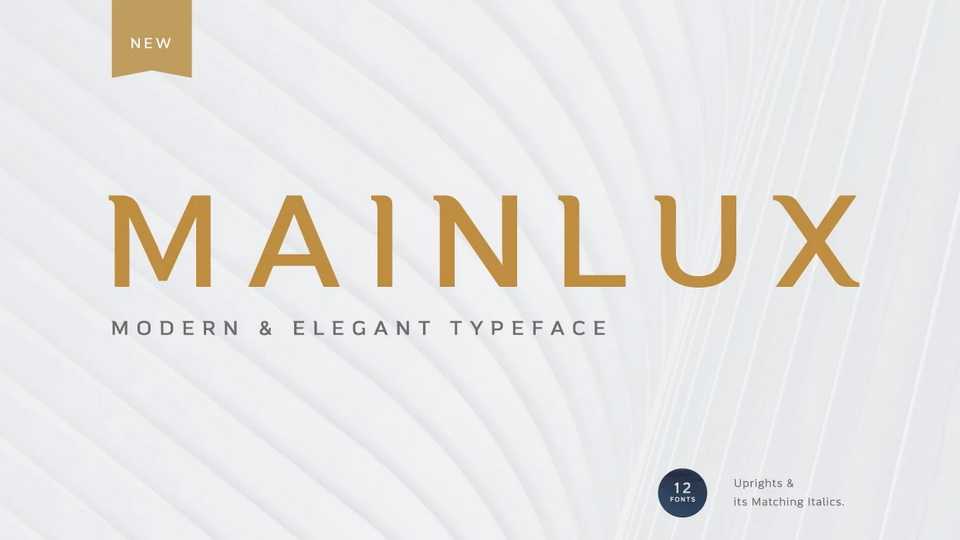
Download Mainlux font, an elegant typeface with a unique touch to each character. Mainlux was designed to give a luxurious impression to your artwork, products, web business cards and various other needs.
Designer: Digitype Studio